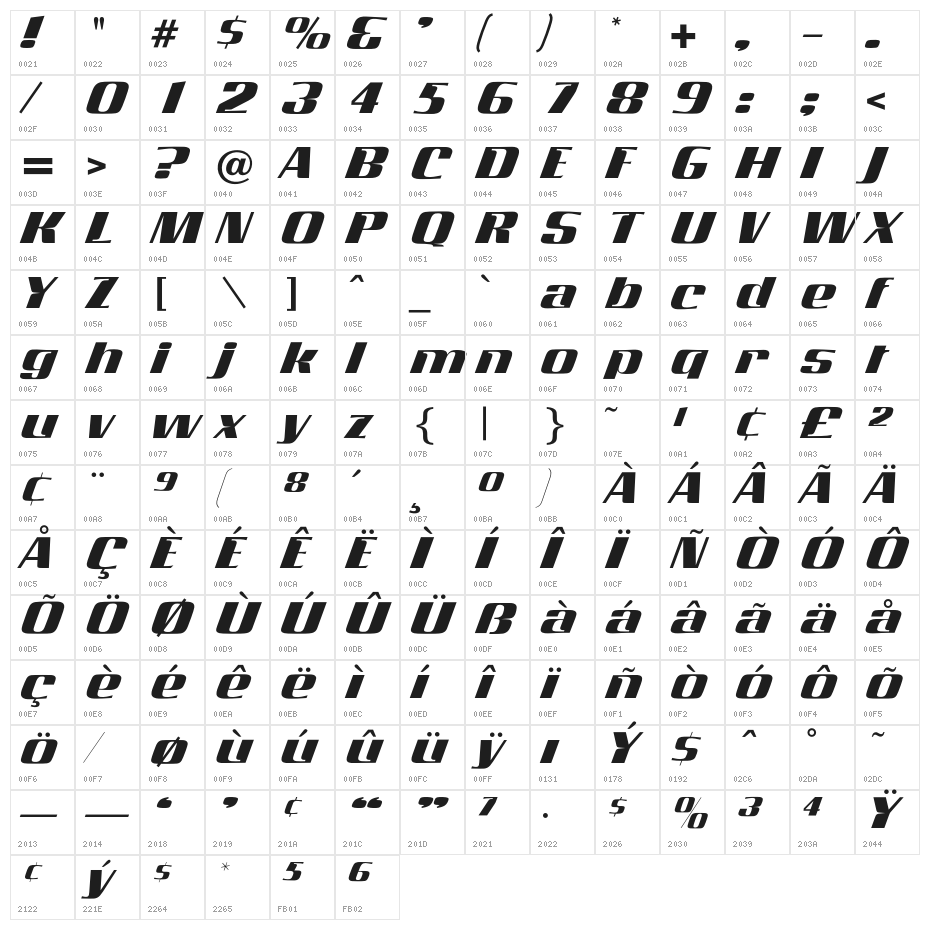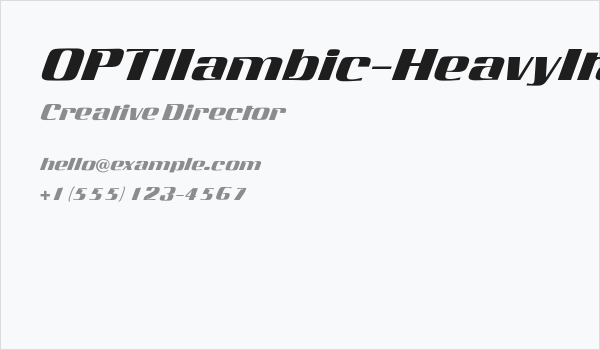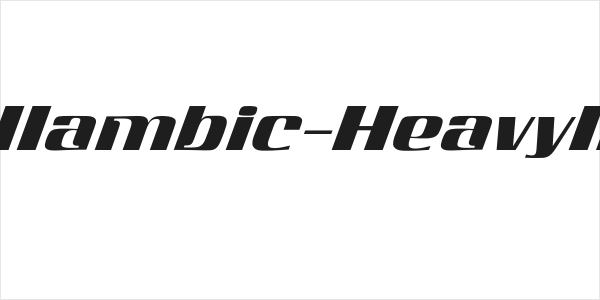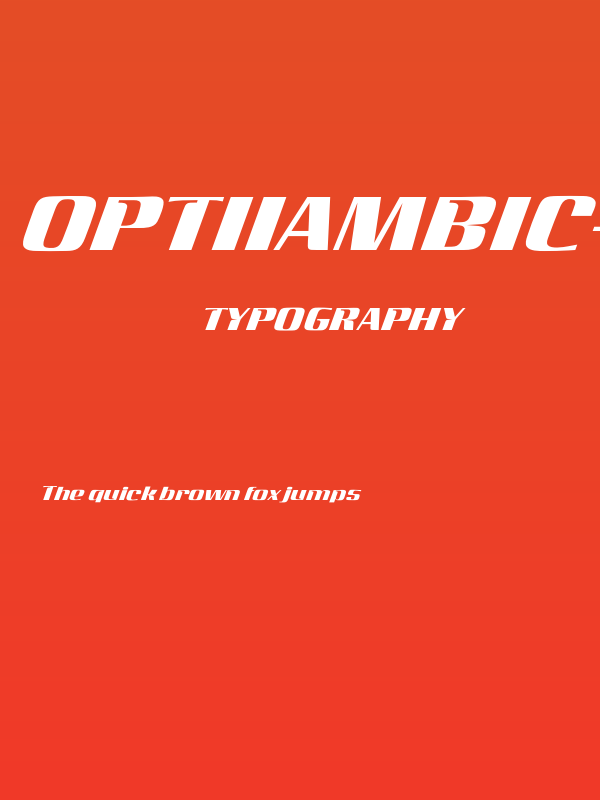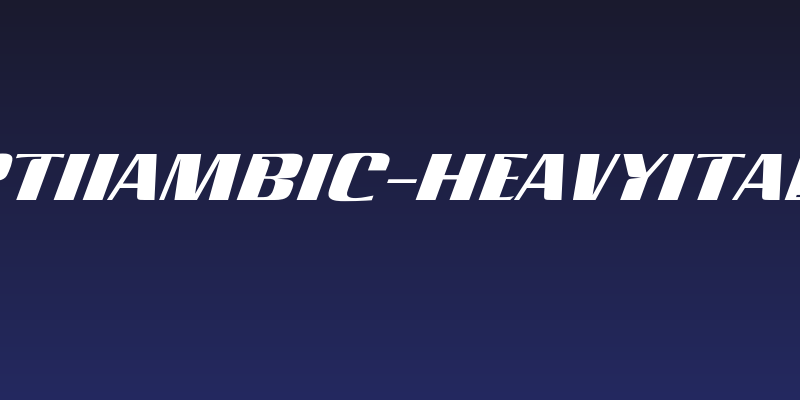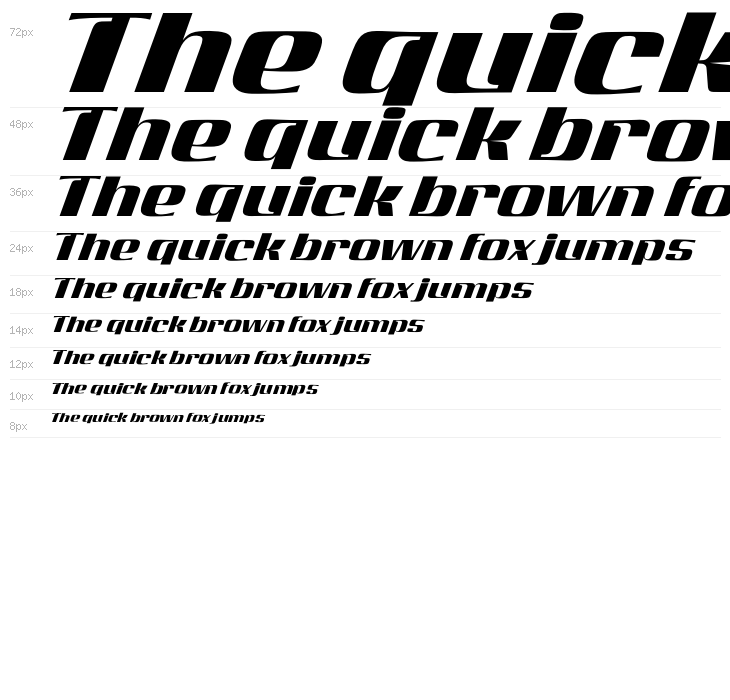
OPTIIambic-HeavyItalic Font
OPTIIambic-HeavyItalic Description
This font exhibits a bold and dynamic style with a pronounced italic slant, giving it a sense of motion and energy. The characters are thick and robust, with a modern and sleek appearance. The uppercase letters are particularly striking, with sharp angles and a strong presence. The lowercase letters maintain the same boldness, ensuring consistency across the typeface. Numbers and special characters are designed with the same attention to detail, making them stand out. Overall, this font is designed to capture attention and convey a sense of strength and modernity.
| Proposed Projects | Ideal for sports branding, dynamic posters, modern advertising, and impactful headlines. |